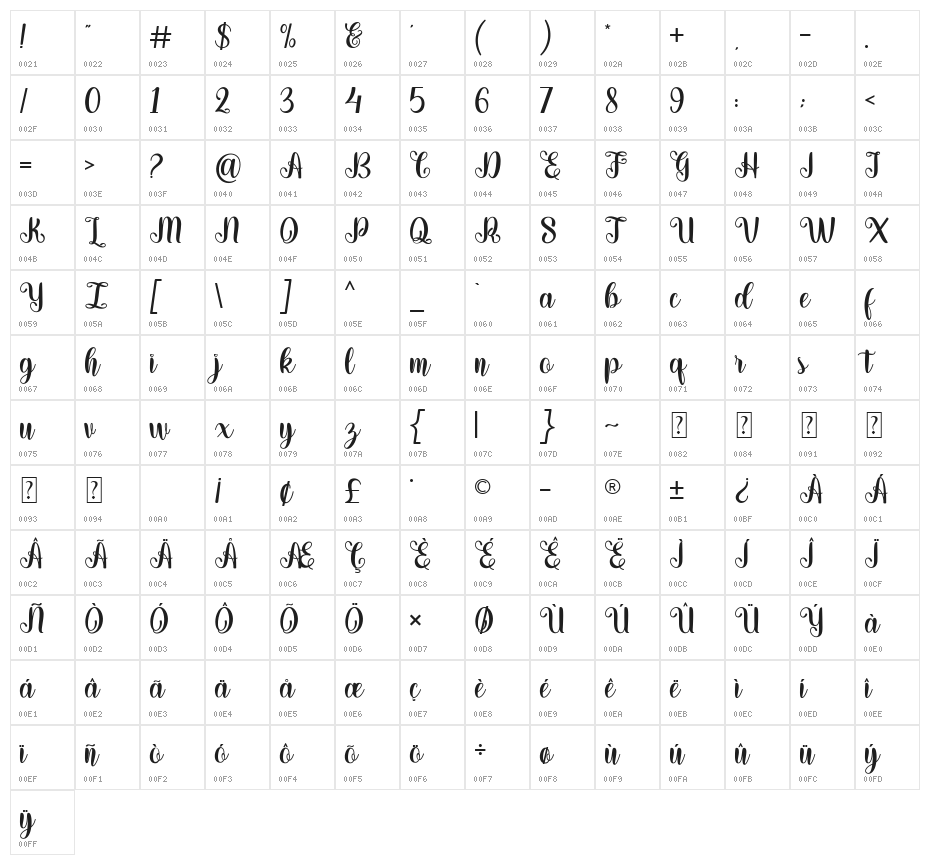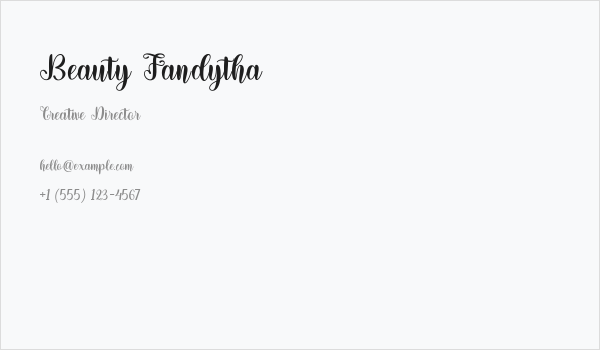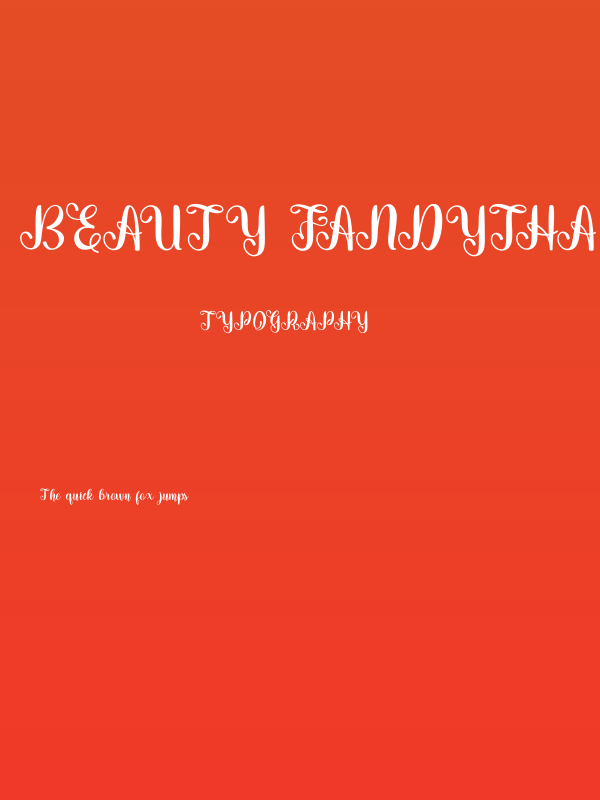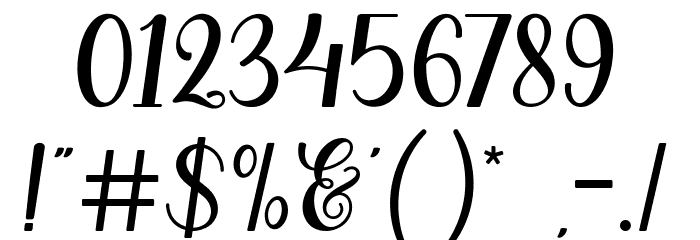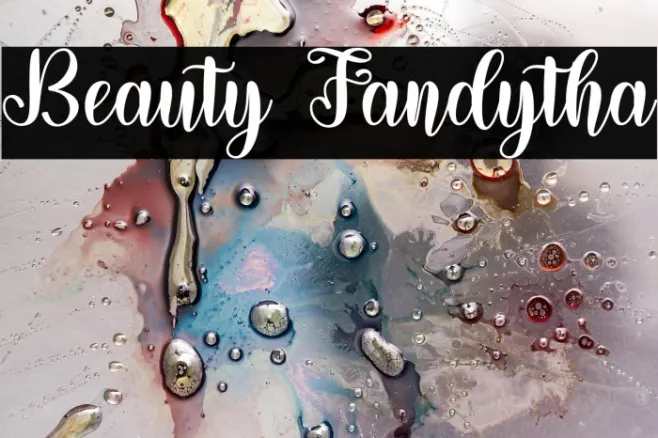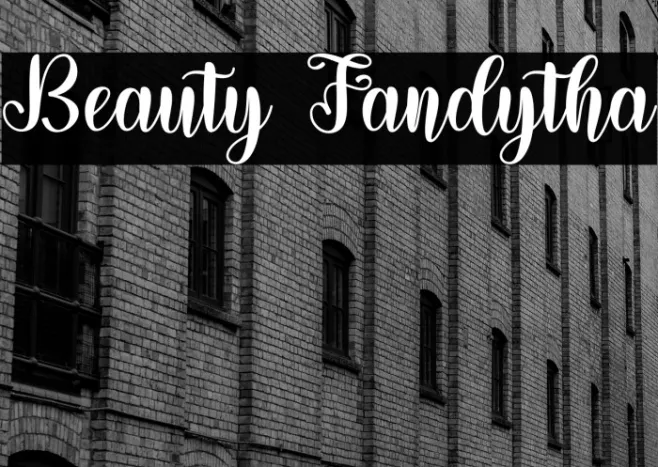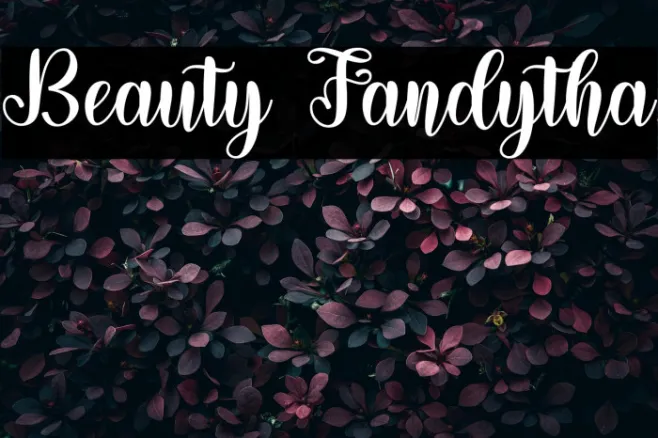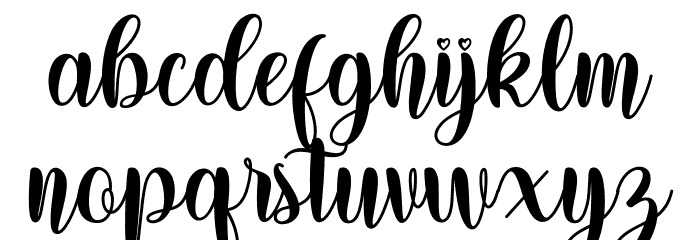
Beauty Fandytha Font
Beauty Fandytha Description
This font features a playful and elegant script style with a flowing, cursive design. The letters are characterized by their smooth curves and loops, giving it a whimsical and artistic appearance. The uppercase letters are bold and prominent, while the lowercase letters maintain a consistent flow, enhancing readability. The numerals are styled to match the overall script theme, with distinctive curves and a touch of flair. Special characters are creatively integrated, maintaining the font's cohesive aesthetic. This font is ideal for projects that require a touch of elegance and creativity, such as invitations, branding, and decorative designs.